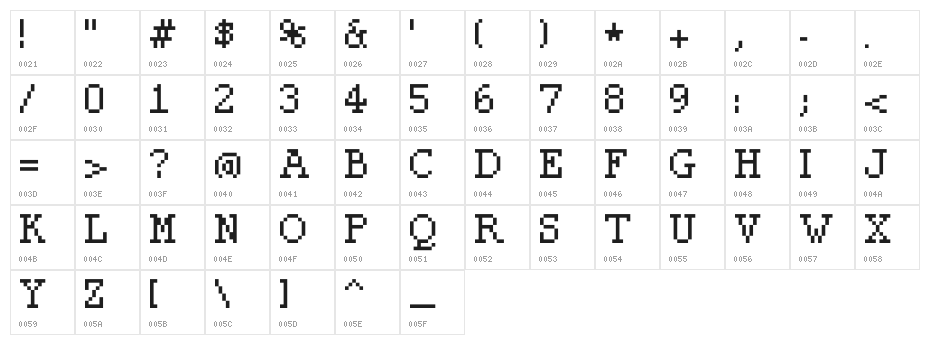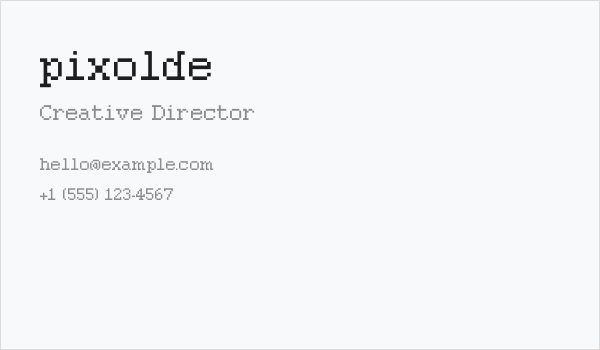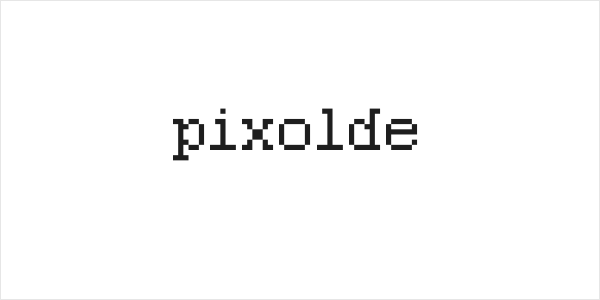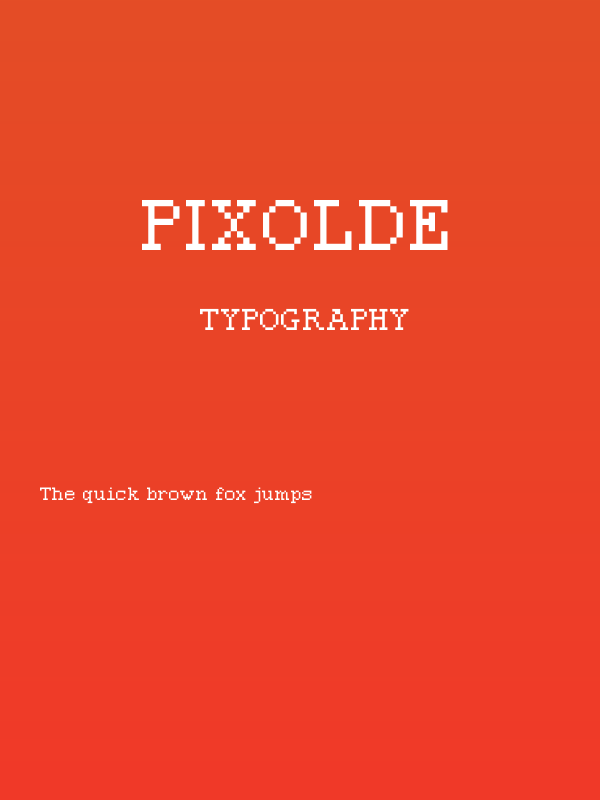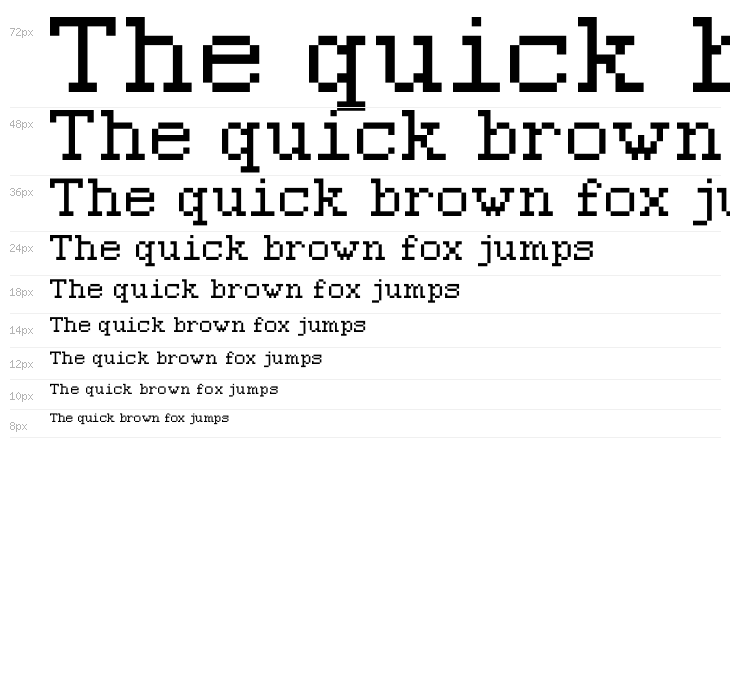
pixolde Font
pixolde Description
This font features a distinct pixelated style reminiscent of early digital displays and retro video games. Each character is constructed with a grid-like precision, giving it a blocky and geometric appearance. The uppercase and lowercase letters maintain a consistent height, contributing to a uniform look across the text. Numbers and special characters follow the same pixelated design, ensuring a cohesive aesthetic. The font's simplicity and clarity make it highly legible, even at smaller sizes, while its nostalgic feel adds a playful and vintage touch to any design.
PIXOLDE UPPERCASE
PIXOLDE LOWERCASE
PIXOLDE OTHER CHARS
| Use Case | Headlines, Logos, Digital Art |
| Proposed Projects | Ideal for retro video game designs, digital art projects, and any creative work seeking a nostalgic or vintage digital aesthetic. |